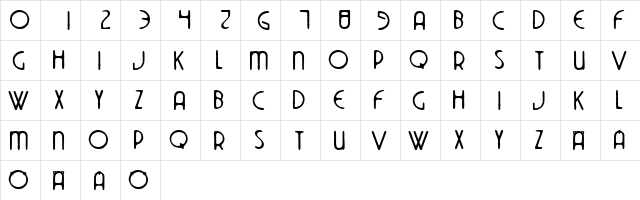
DekoSide Regular Font Preview
DekoSide Regular
DekoSide Regular Font Details
Design Context for DekoSide Typeface
DekoSide is a composed and adaptable typeface that performs quietly and consistently across a wide range of design contexts.